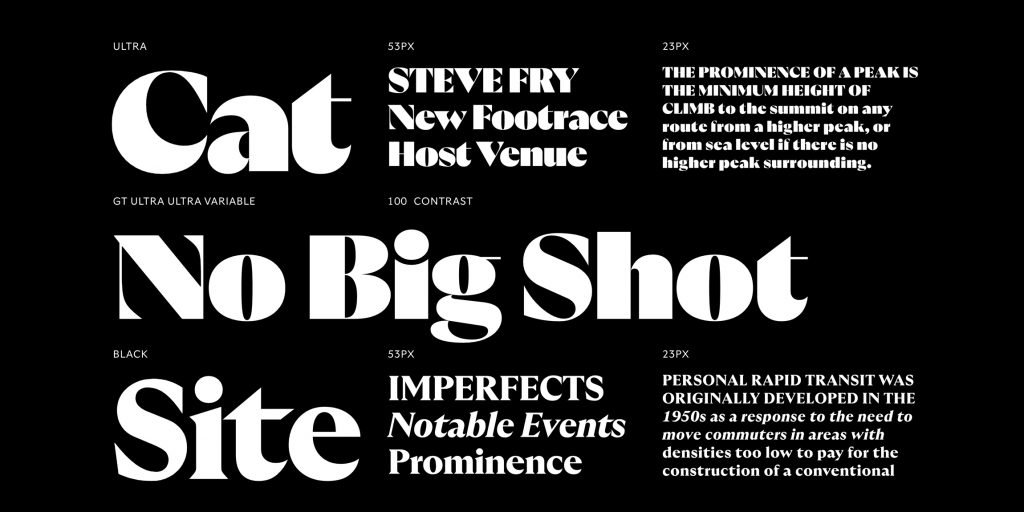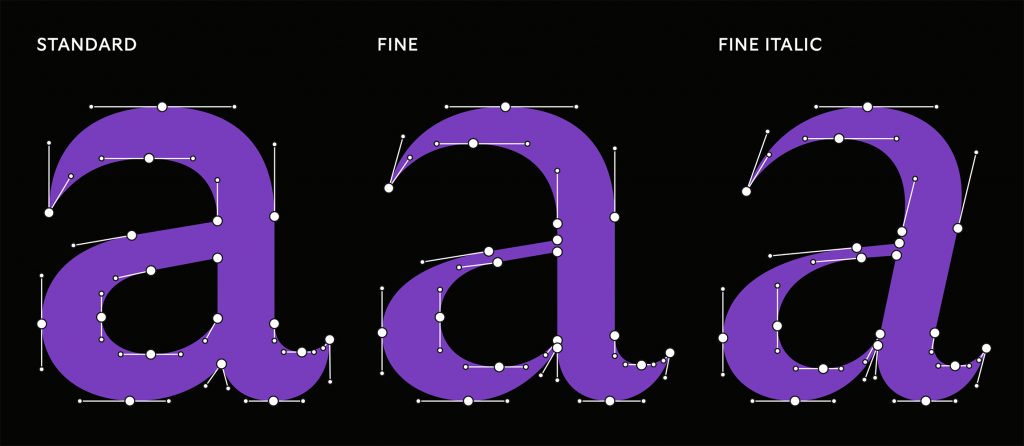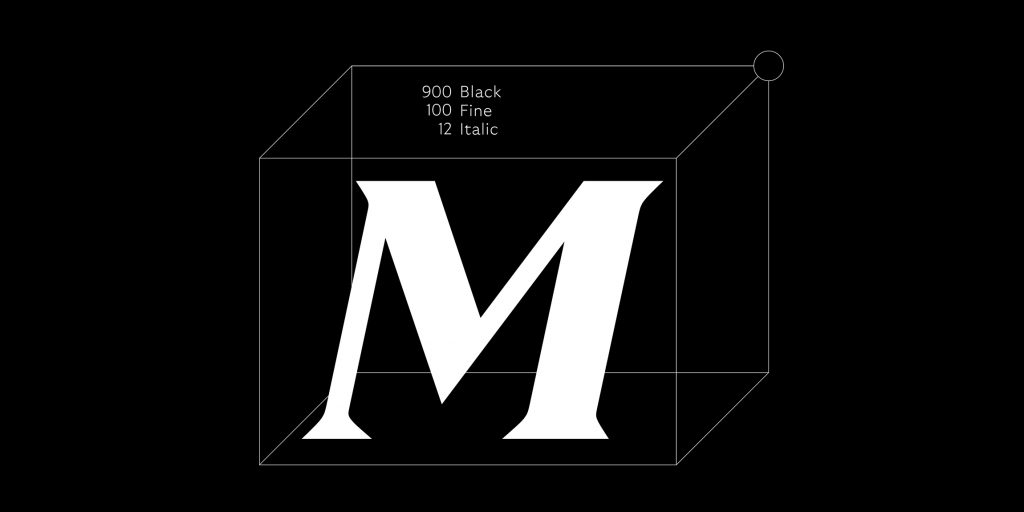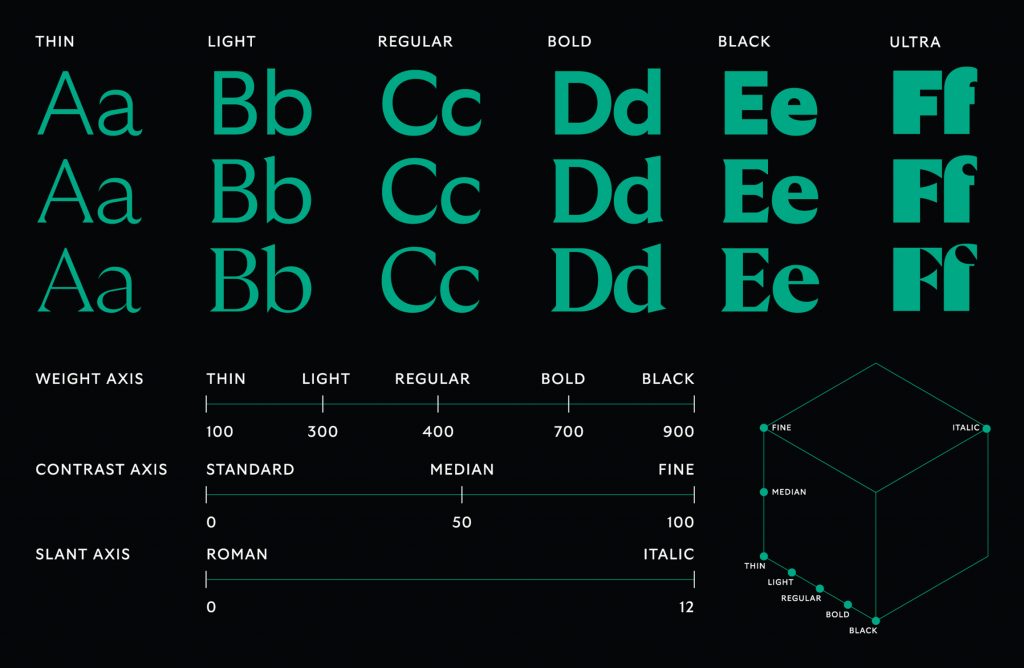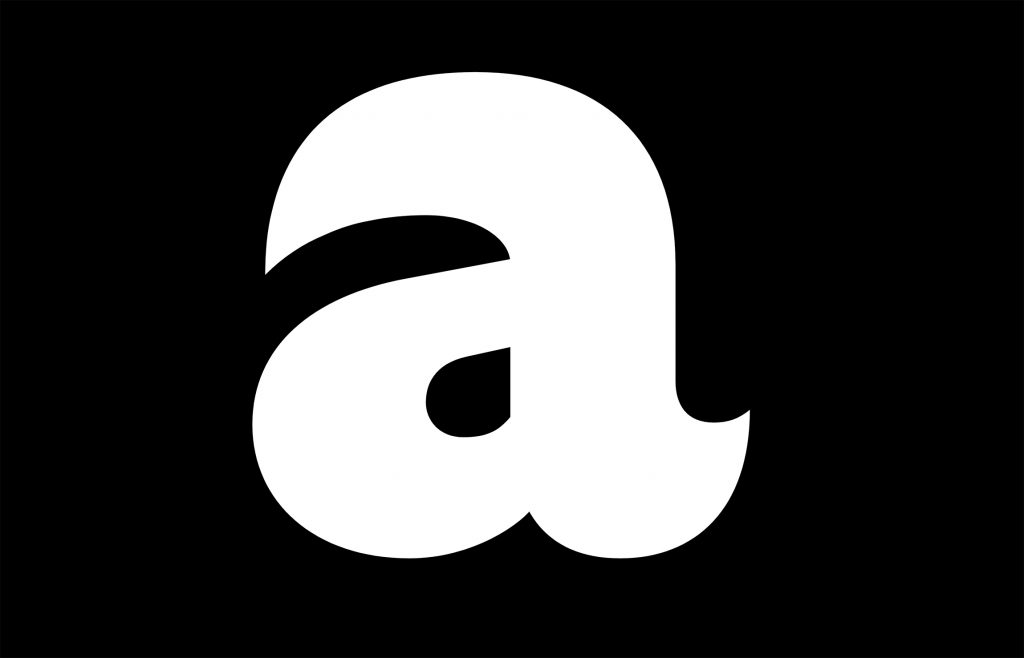
Name: GT Ultra
Designer: Noël Leu
Foundry: Grilli Type
Release Date: September 2021
Back Story: Leu set out to challenge the assumption that plain sans serif typefaces best communicate a modern look, by making a startling assertion—namely, that there’s no clear distinction between sans and serif.
He began work on GT Ultra in 2017 with calligraphic drawings, removing serifs and ornamental aspects such as ball terminals, to shape the design and get closer to his vision. He limited the horizontal proportions by infusing geometry into the letterforms and compressed the vertical proportions to make the design more compact and sturdy.
“Once I finished the standard family, I realized that there was even more potential for this design by extending the single family into a typographic system,” Leu says. “The design went from a serif to a sans serif that feels like a serif, and then to a serif that feels more like a sans.” Increased contrast emphasizes the typeface’s calligraphic heritage, and implementing flared terminals provided balance to the type’s weight. The final step was adding the Ultra style, which also gave the typeface its name and was the designer’s final push for maximum impact and expression.
Why is it called GT Ultra? Leu named his previous typeface GT Super, so there was only one direction to go with this new one.
What are its distinguishing characteristics? GT Ultra sits on the imaginary fence between serif and sans. Shapes with curves or circles always have a pointy terminal stroke on the top left and the bottom right side, or a vertical cut where a serif would usually be found. Decorative elements typically seen in serif typefaces are avoided in favor of simple and clear details. Terminals become more and more flared as the stroke contrast increases to help balance the weight of the characters and the color of the typeface. Italics do not use alternate shapes (such as the single story “a” common amongst serif Italics) but instead are slanted versions of the Roman with the weight, contrast, terminals, and width adjusted to match the italics of a serif typeface.
What should I use it for? “I don’t usually design typefaces for a specific use case, and this one is especially versatile,” says Leu. “I’d personally love to see it used in branding where designers might otherwise opt for a slick sans serif typeface. GT Ultra, with its distinct calligraphic heritage, offers a more cultured feel for brand communication.”
What other typefaces do you like to pair it with? Here, the designer protests. “This is unfair, I’m Swiss and never pair two typefaces in a design!” Let’s respect this position. GT Ultra is like a trained opera singer with a wide vocal range: The voice of the standard version feels like a pleasant sans, whereas the fine covers a more exalted, serif-y territory. Likewise, the weights range from a delicate Thin to an almost brutal Ultra. This allows for a myriad of different expressions by pairing styles within the family.